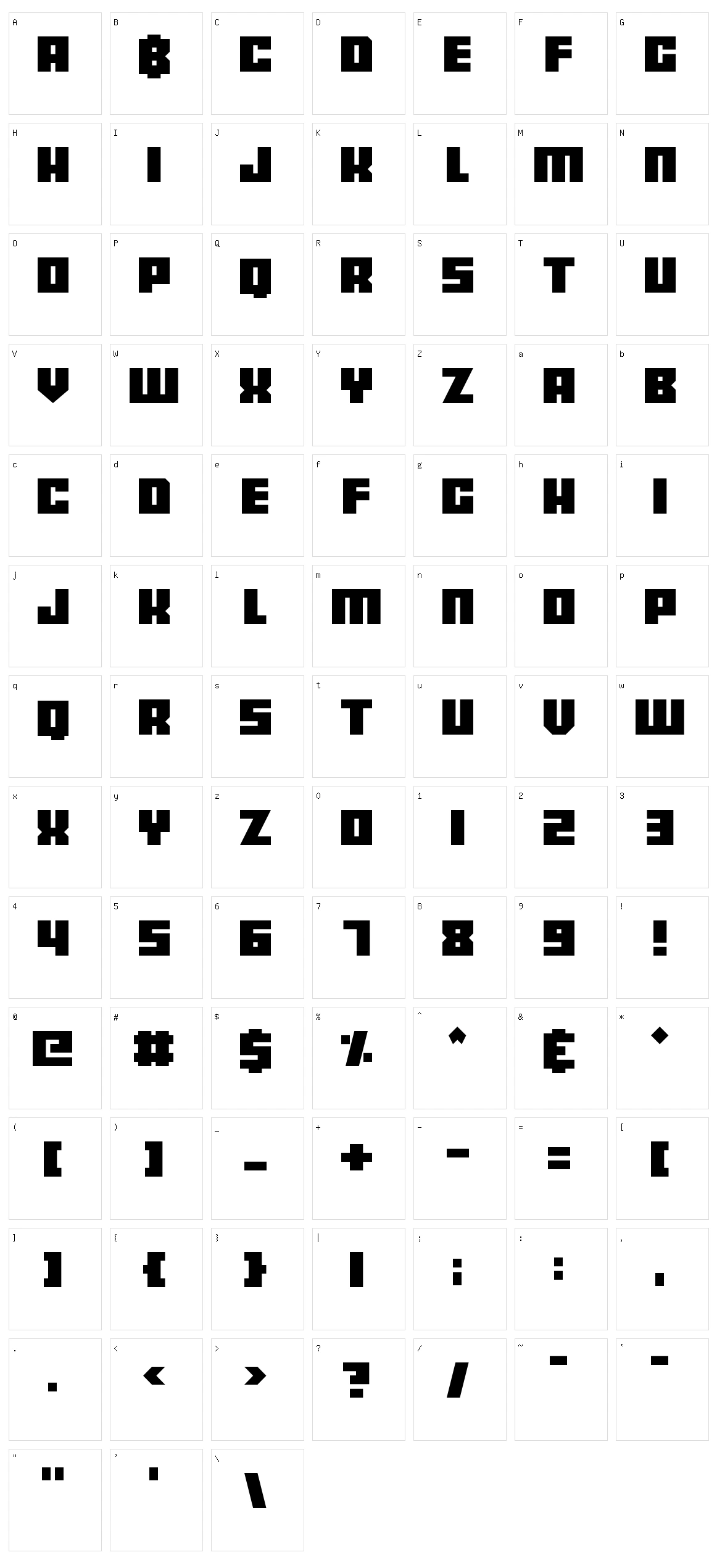
The free font Bankjob is carefully designed by Hawtpixel, showcasing a thoughtful balance of creativity and usability and falls under the Square font style. When you download the ZIP file, it contains only 9.14 KB of font files, making it lightweight and quick to download. Please review the license details below to understand permitted usage and distribution rights. If license information is not available, we recommend using this font for personal projects only or contacting the author directly for commercial usage permissions.